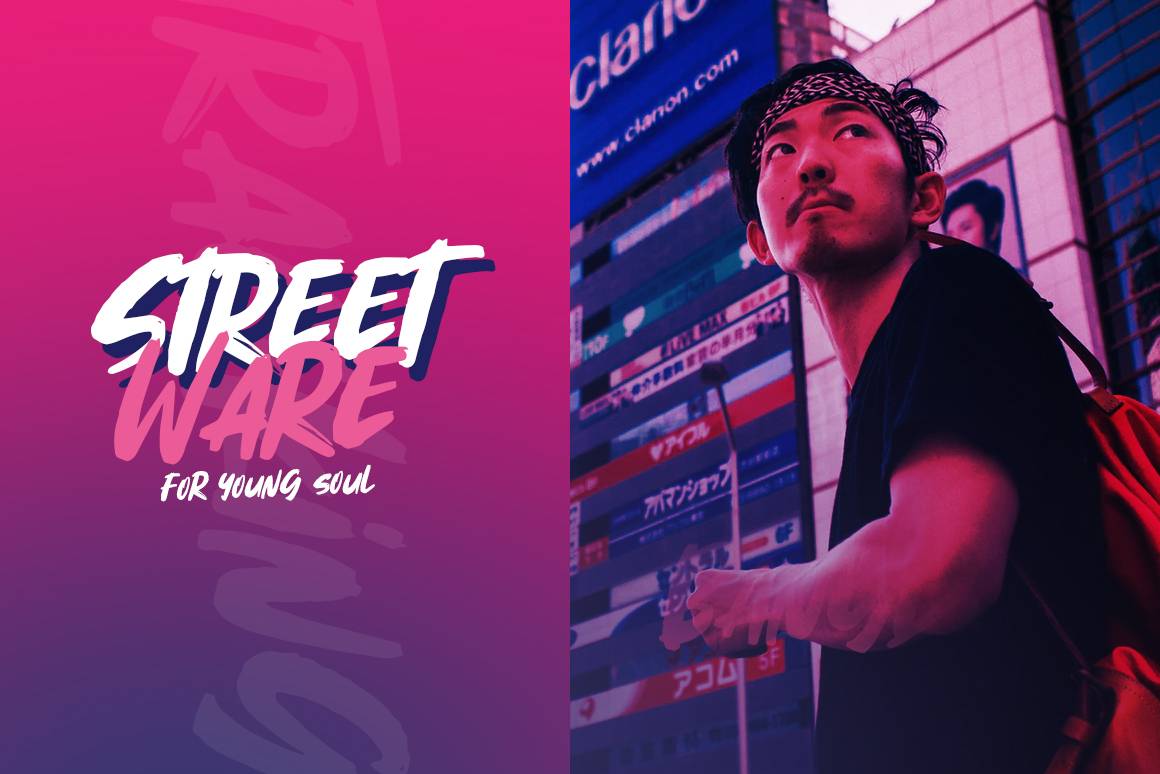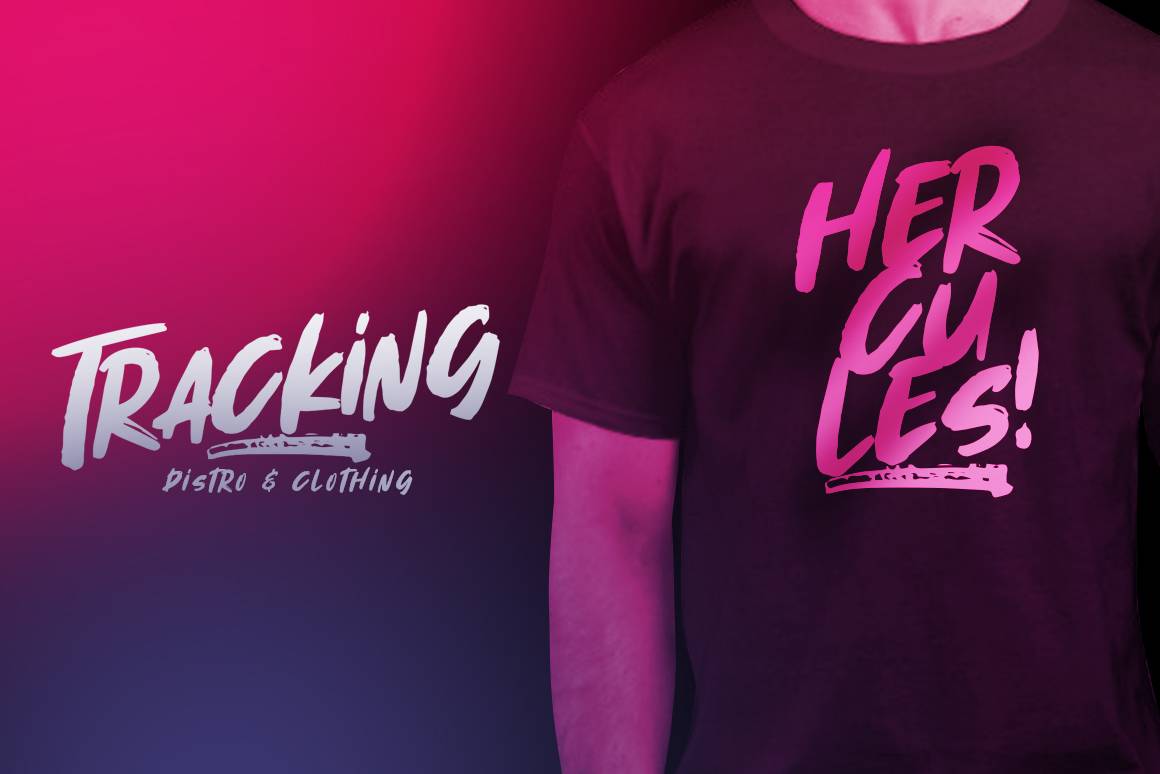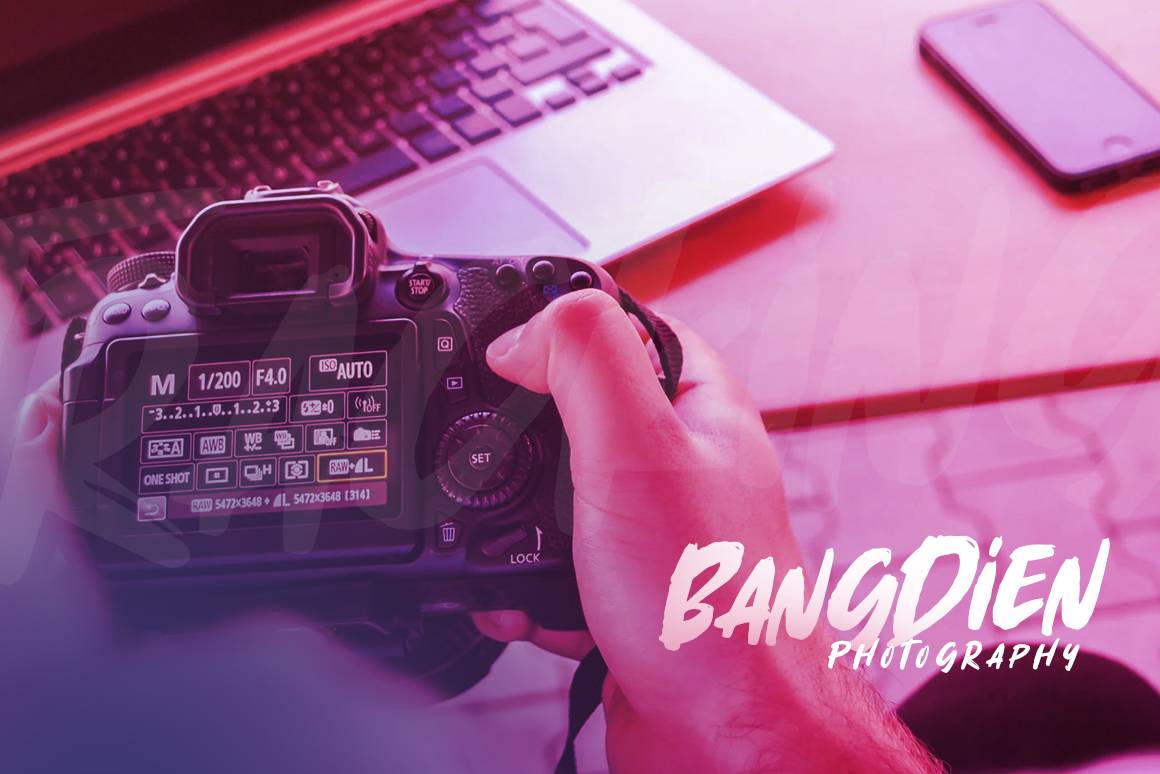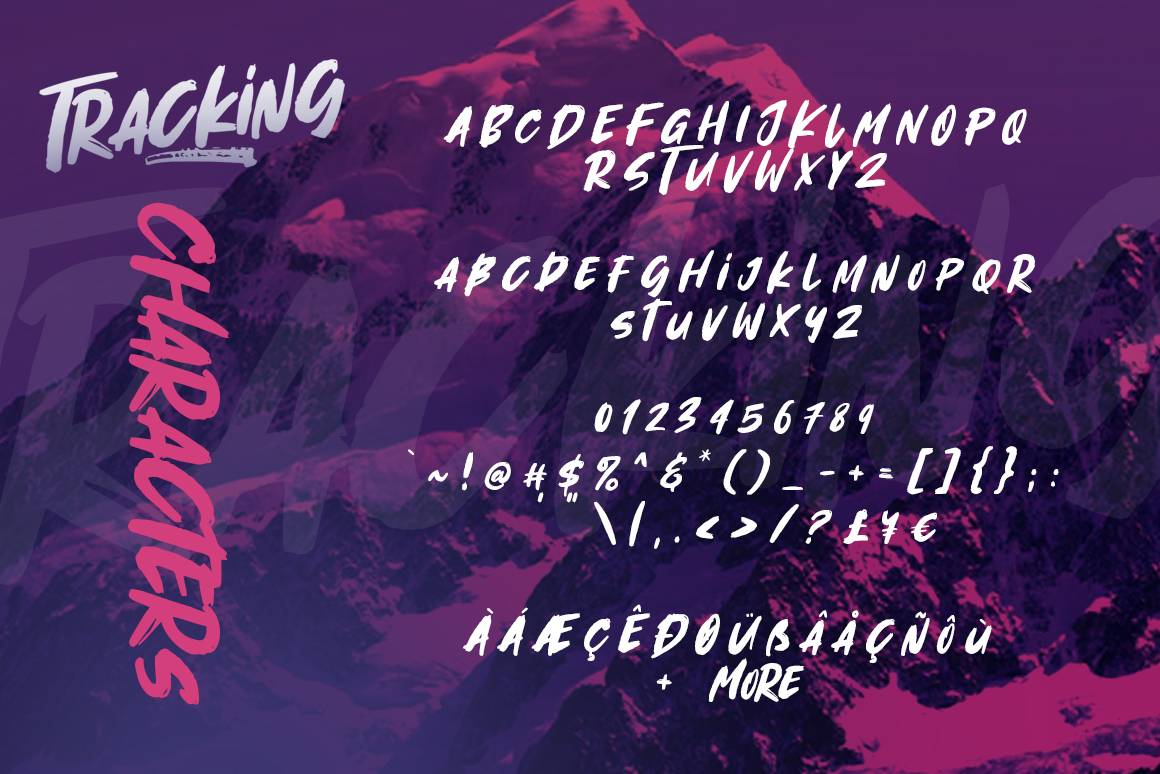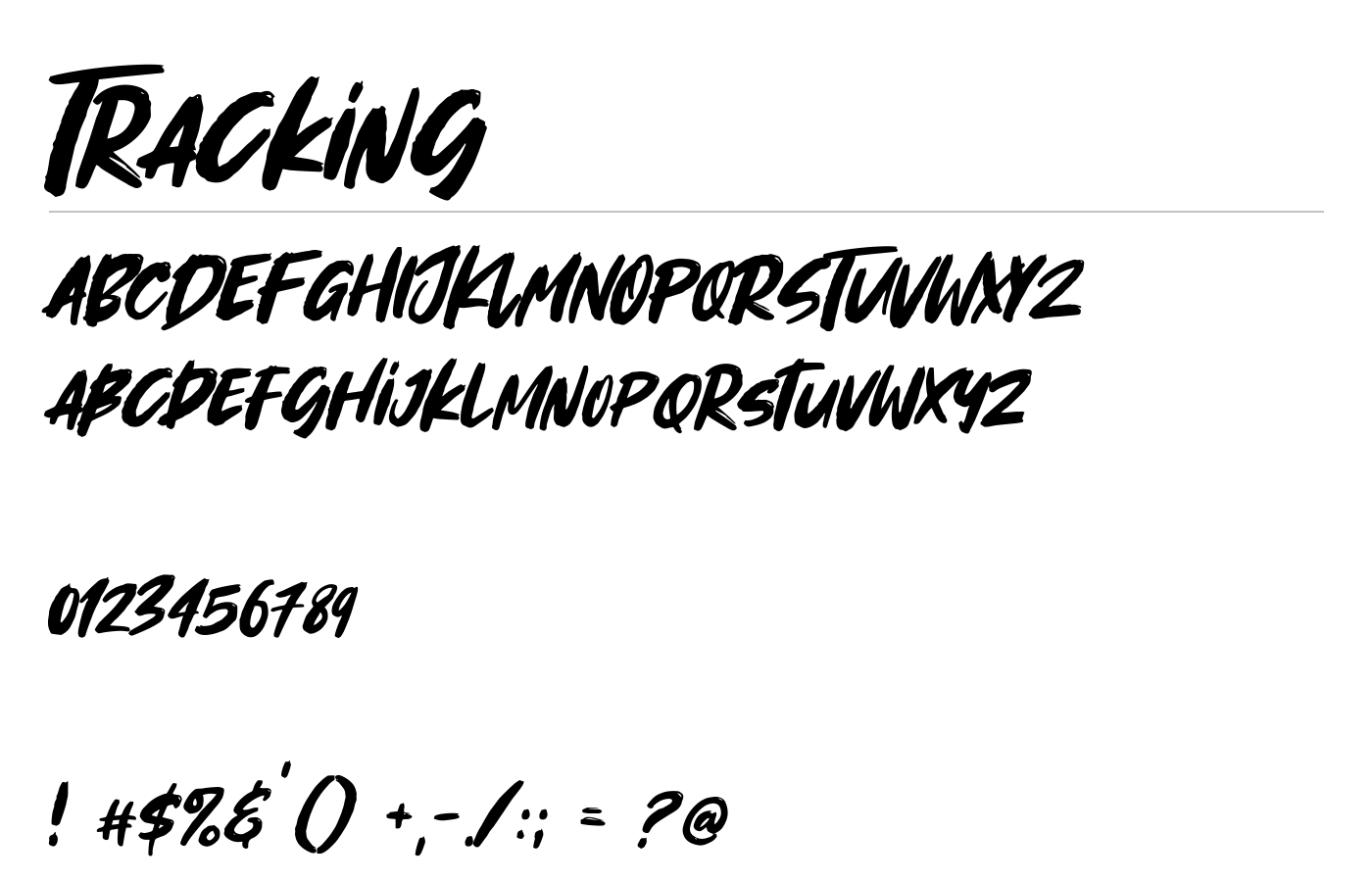
Tracking Brush is a lively and bold brush script font characterized by its casual, hand-painted style and energetic strokes. It features slightly condensed letterforms with a natural, textured finish that adds personality and warmth, making it ideal for creative branding, posters, and eye-catching headlines. This font conveys a sense of spontaneity and authenticity, perfect for designs seeking a dynamic and approachable vibe.
Tracking Brush Font